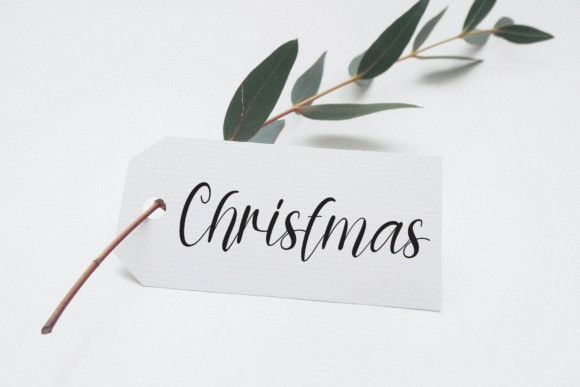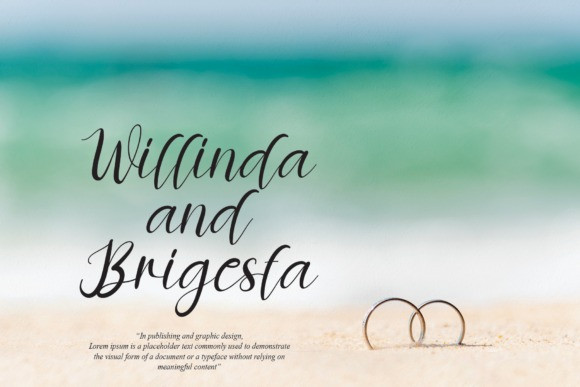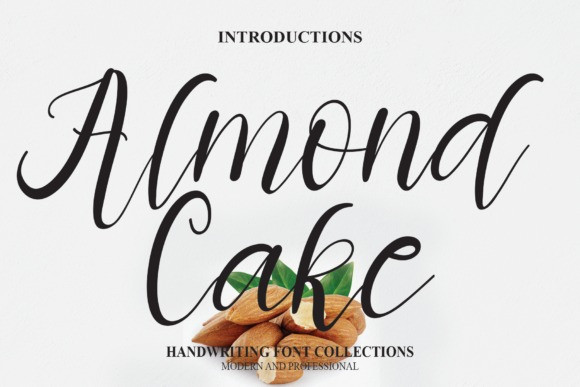
Almond Cake Font
Almond cake Font is a splendid handwritten font with an alternate thickness that creates unique characters. Use it for wall displays, wedding invitations, social media posts, logos, advertisements, product packaging, product designs, labels, photography, watermarks, invitations, stationery, and any project that requires a handwritten taste.